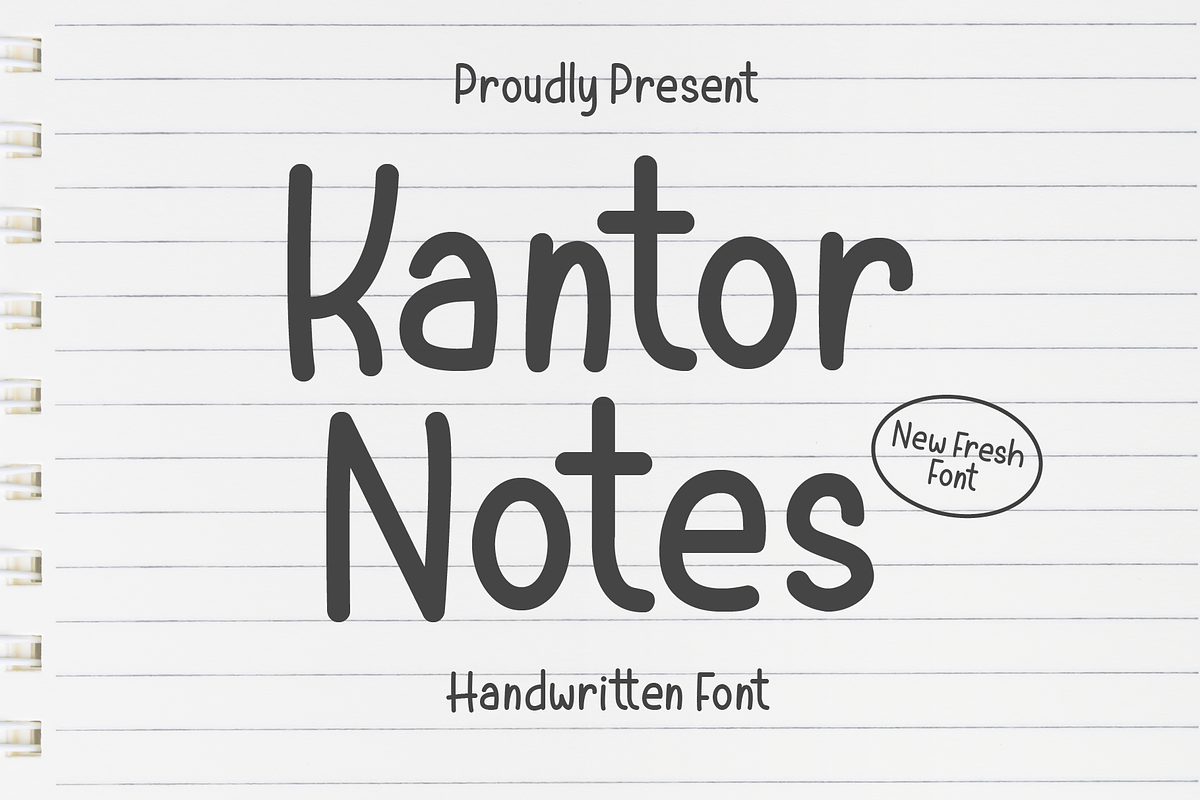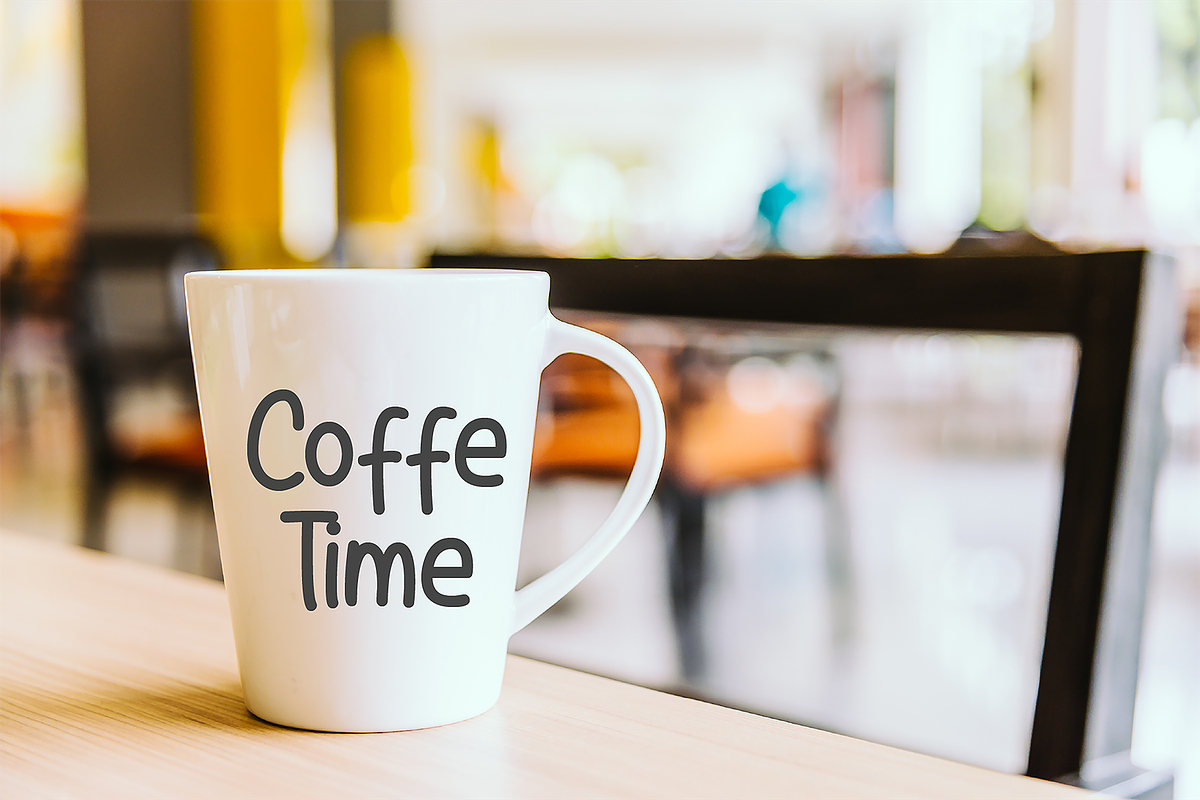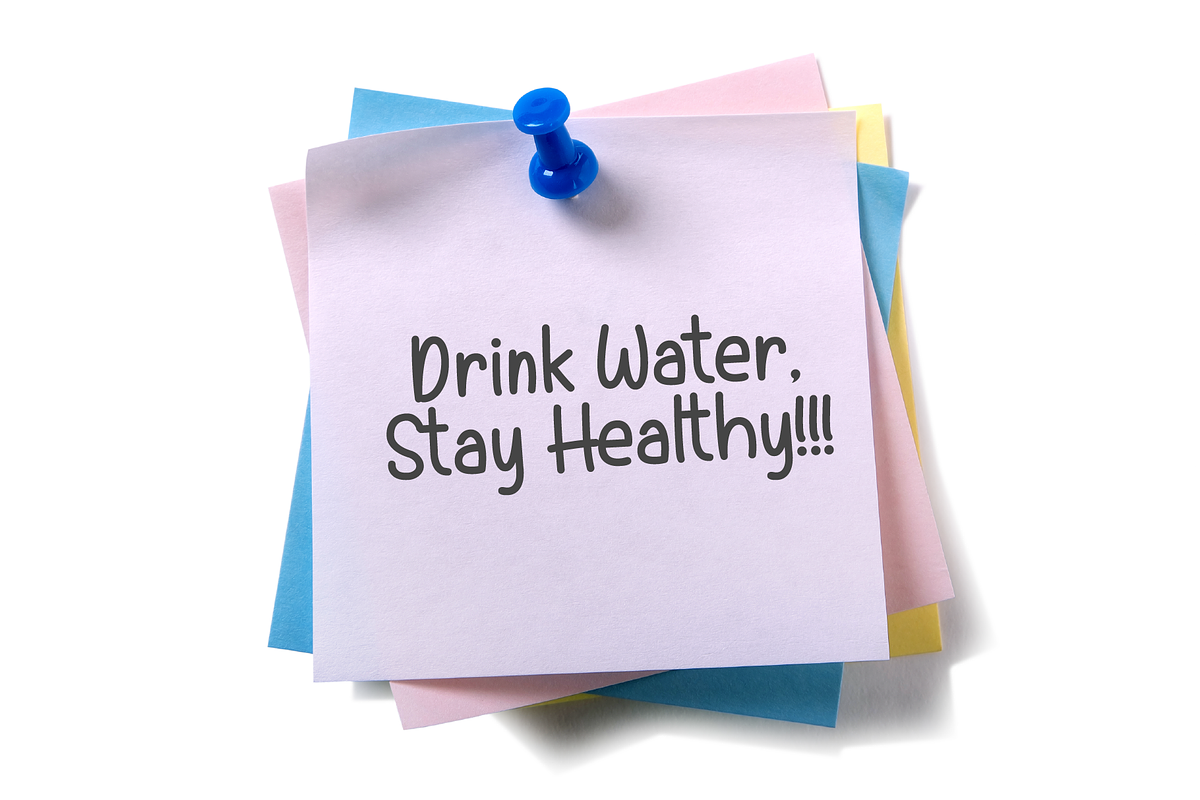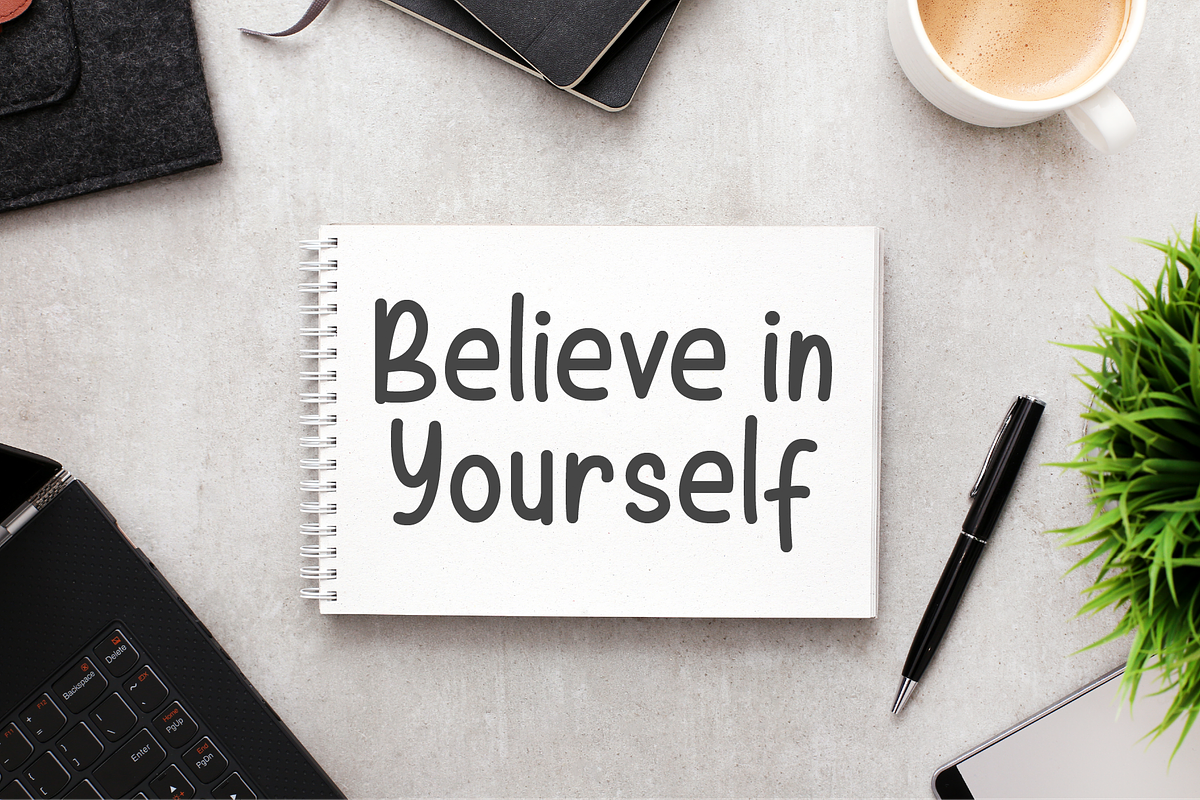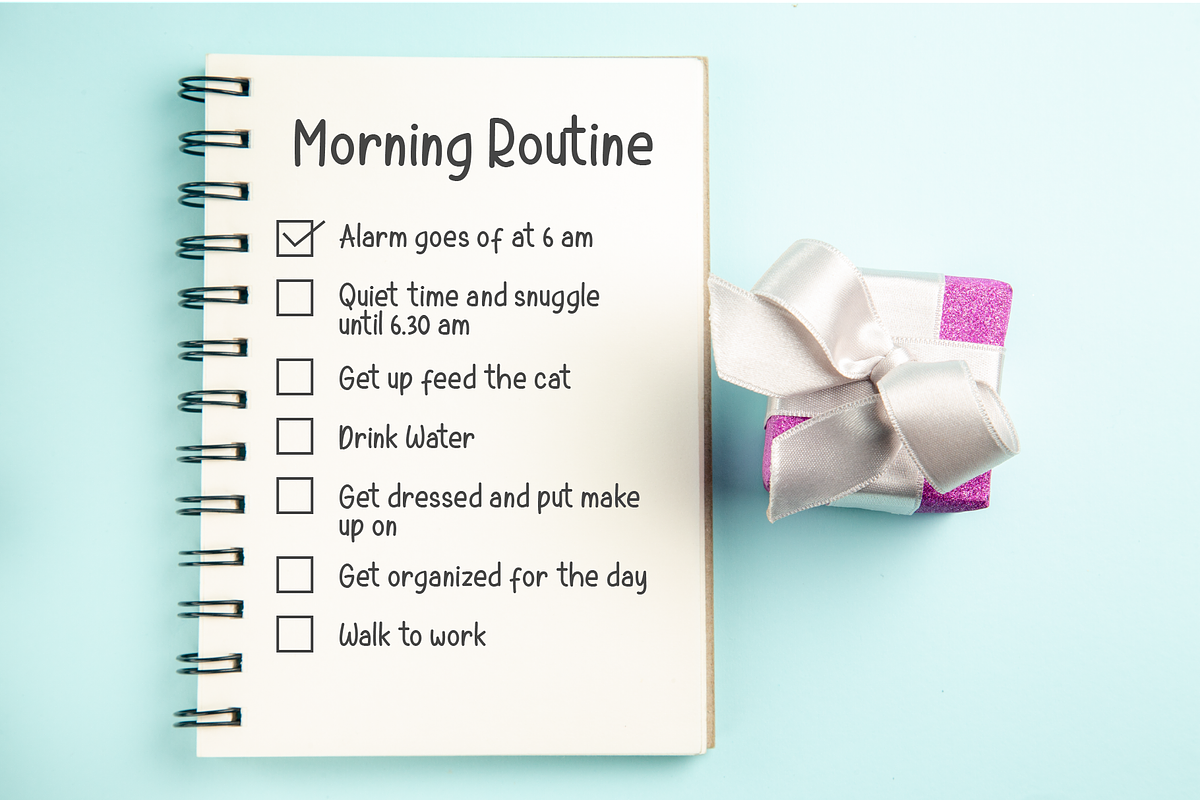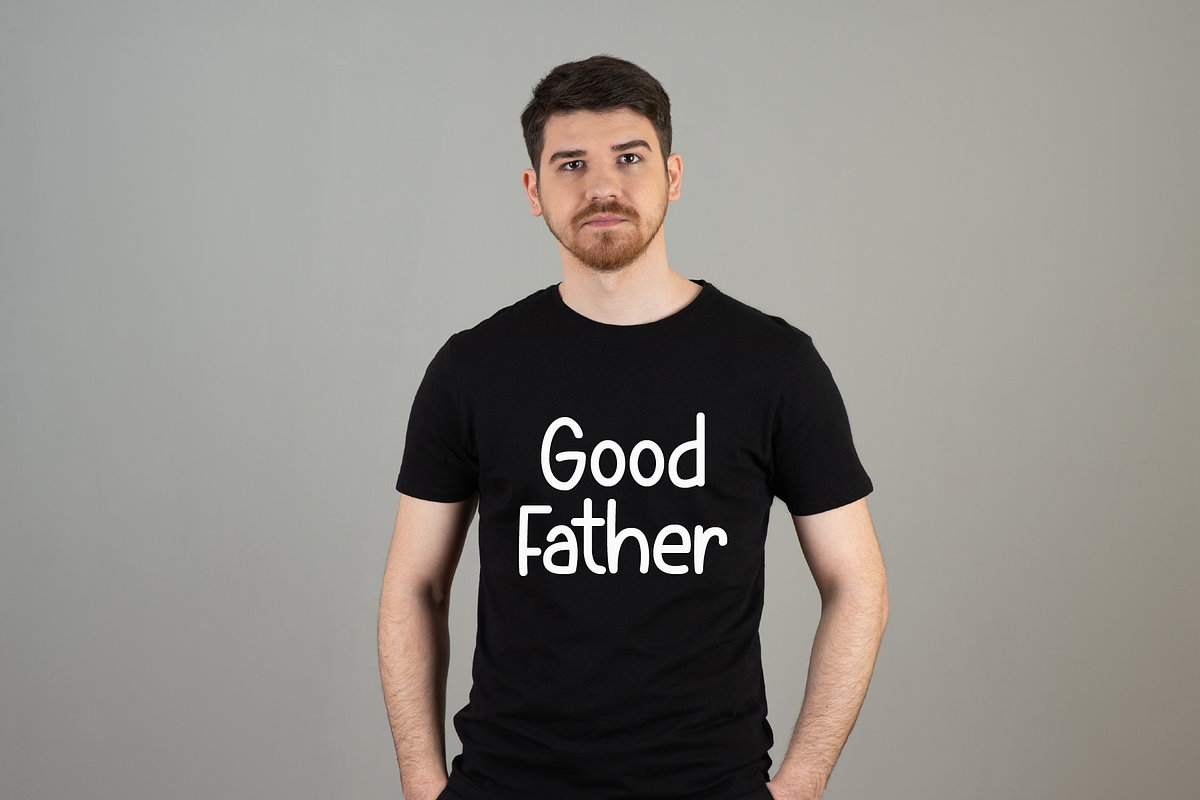
Kantor Notes
This Font is playful and endearing typeface splendidly encapsulates a sense of casual cuteness, adding a playful touch to all your creative needs. Whether you’re crafting a nostalgic ‘back-to-school’ design, creating customized mugs or t-shirts,